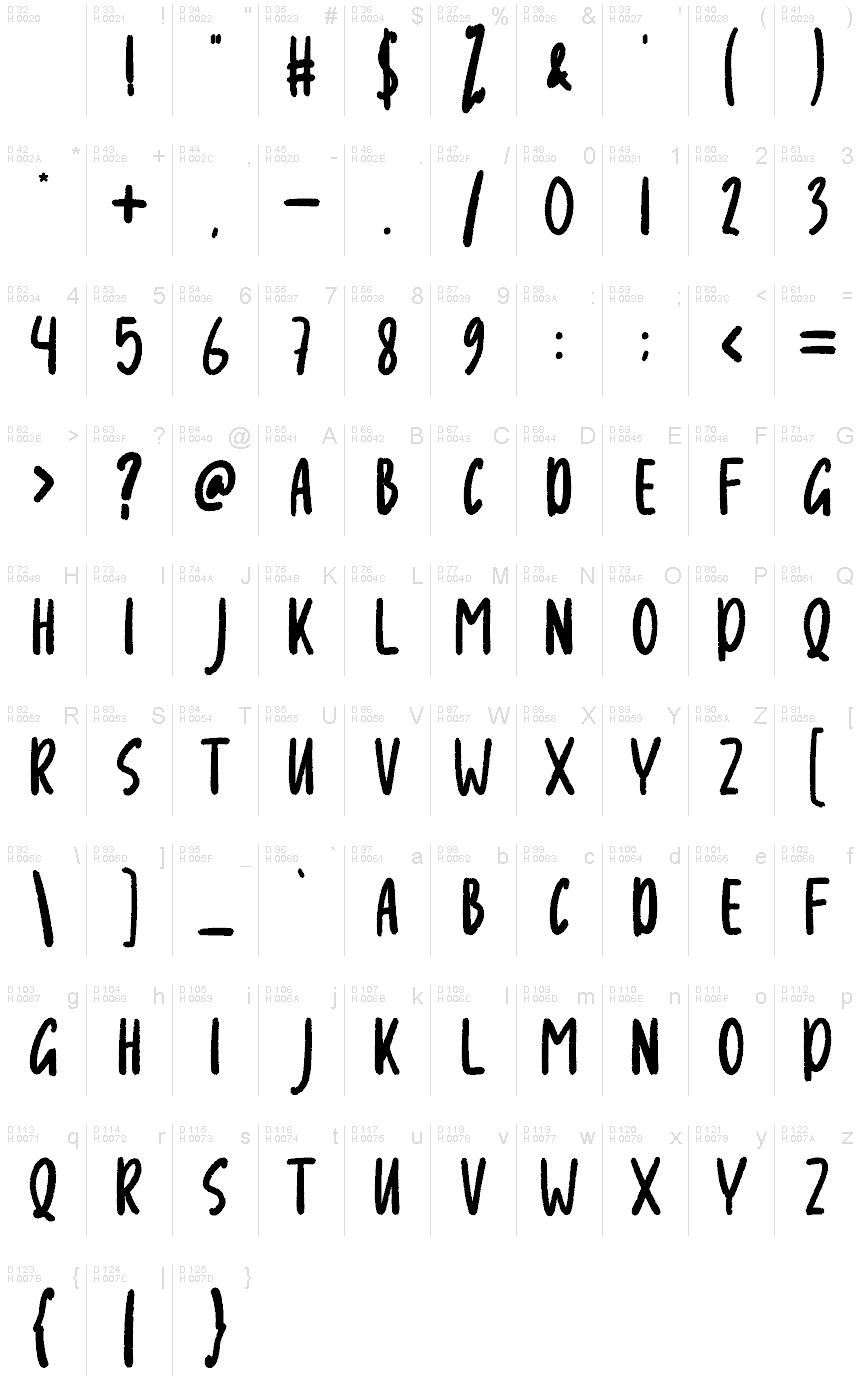
Operashi
This is the age of digital creations with technology allowing us to come up with a seemingly endless number of designs that can be useful in a multitude of ways.
But sometimes the best creations are the ones with the most human touch so today we have a condensed brush font for you that carries the signature of its designer: Operashi.
This brush font is hand-painted and available in Uppercase and symbols with a rustic vibe that can be used for branding or packaging designs such as coffee, tea, chocolate, beer, pastries, or clothing brands. This multilingual font designed by Skiiller Studio can also be used for posters, t-shirt designs, flyers, labels, headlines, logotypes, stationery items, invitation cards, and more for the perfect touch that comes with something created by hand.